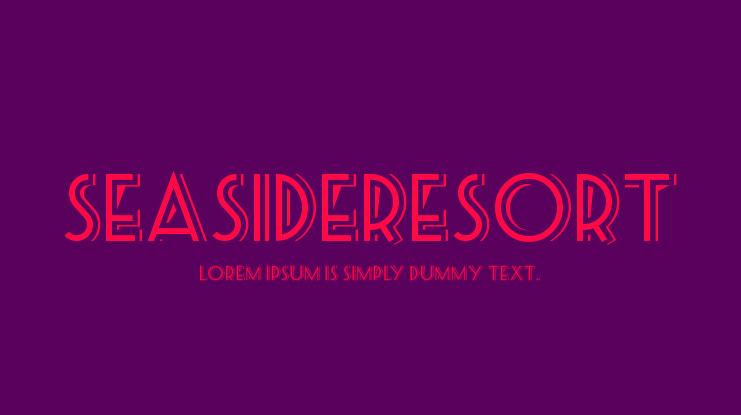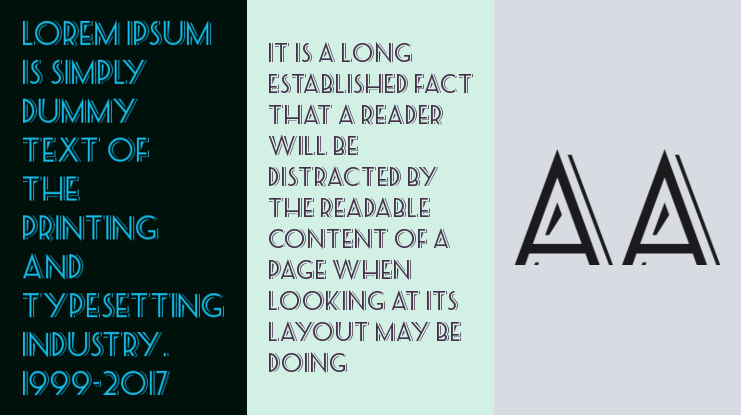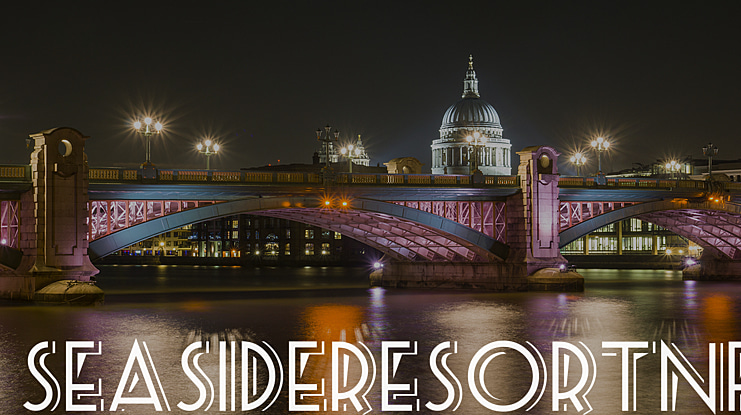
SeasideResort Font
Nick Curtis
A 1933 poster by Italy’s Bertarelli Studios provided the inspiration for this unusual headline font. The “perspective shadows” were originally rendered with what appears to be litho crayon on coquille board; although the effect was pleasing, I cleaned up the lines to keep the font file a manageable size.